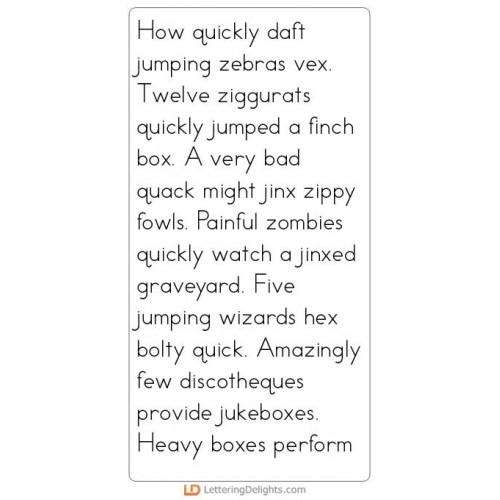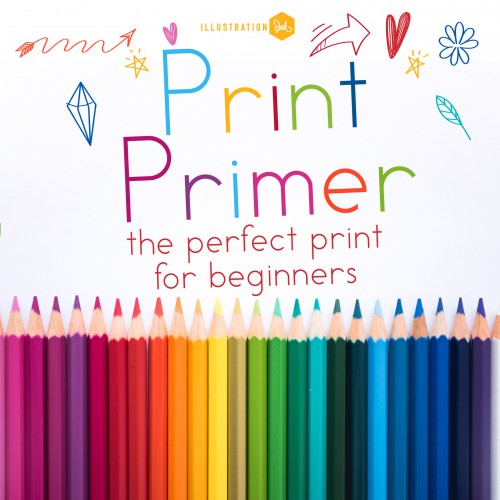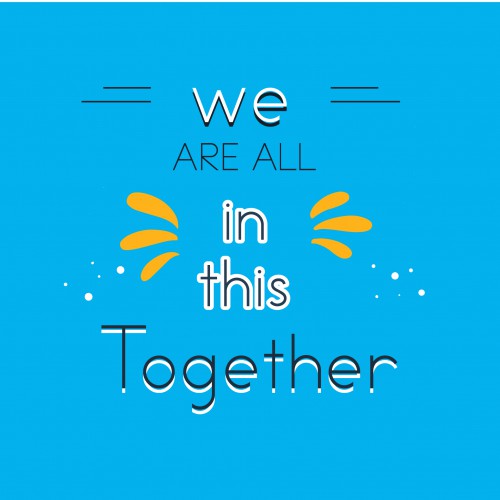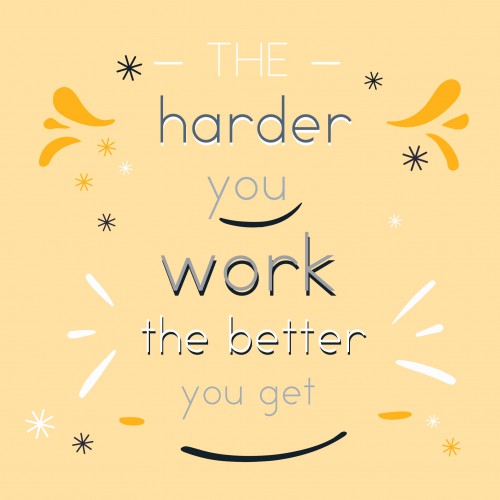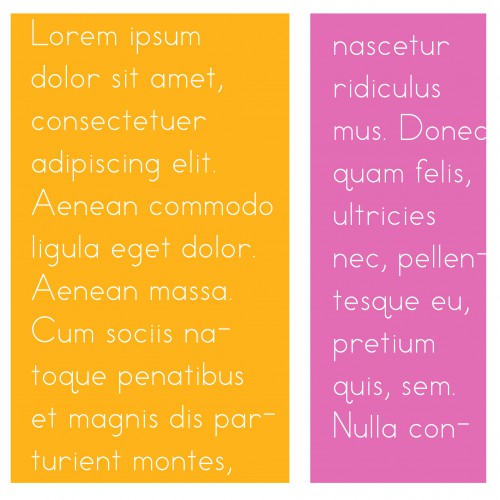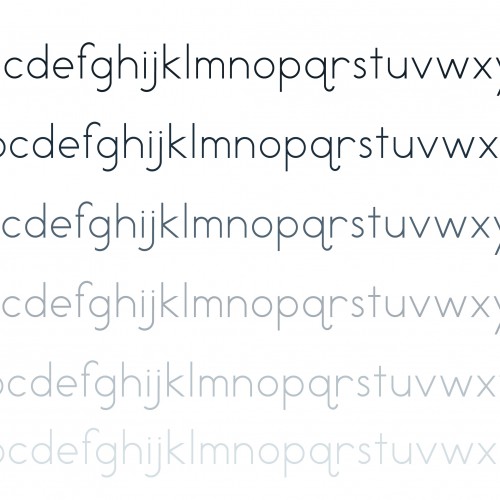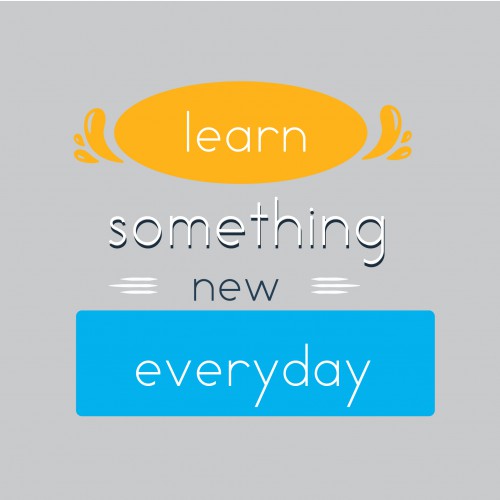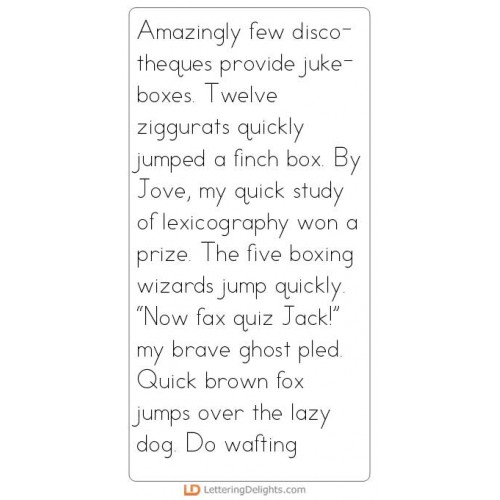
Print Primer - Font Bundle
This awesome bundle gathers together all our new Print Primer fonts! This new tradional print set has an entire international character set, kerning, and special spacing.